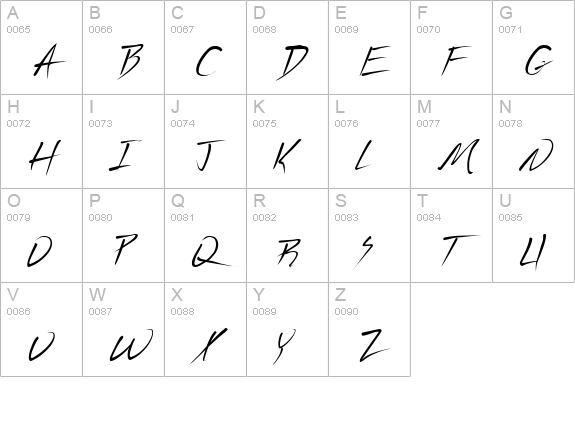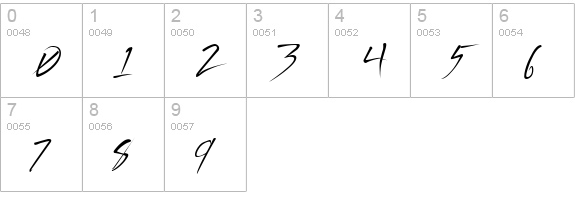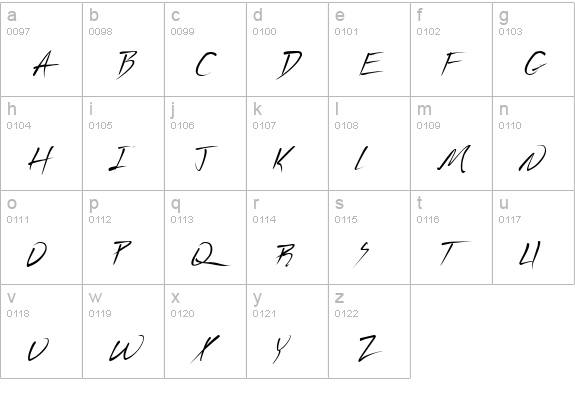
Pirouette Font Details
Pirouette font is a delightful and elegant typeface that exudes grace and sophistication. With its flowing lines and graceful curves, Pirouette is perfect for adding a touch of charm to your designs. This versatile font is ideal for both formal and whimsical projects, making it a must-have for any designer's toolkit. Designed with precision and attention to detail, Pirouette font is sure to captivate your audience and elevate your creations to new heights. Whether you're designing invitations, logos, signage, or any other project, Pirouette will bring a touch of finesse and flair to your work. The best part? Pirouette font is completely free to download at FontsMarket.com, allowing you to access this stunning typeface without breaking the bank. Don't miss out on the opportunity to add Pirouette to your font collection and take your designs to the next level. Download it today and let your creativity soar with Pirouette font!